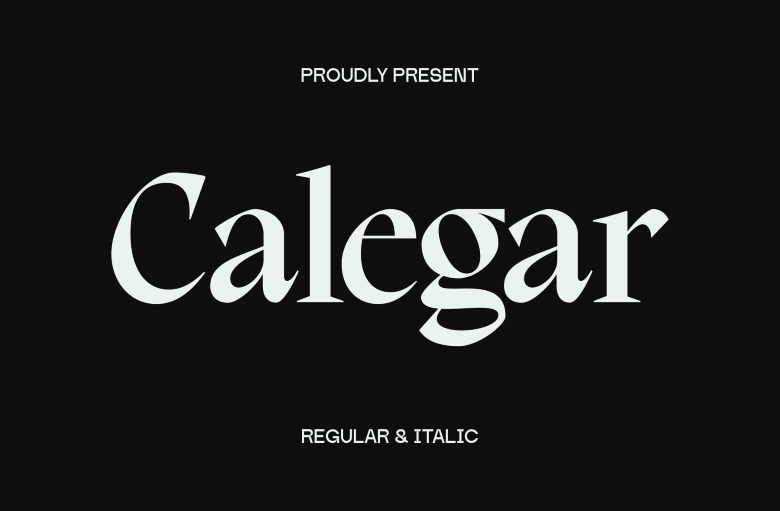
Calegar Font
Calegar is a western serif display typeface which reflects a perfect synergy of tradition and modernity. This works of font family has two orientations, the normal and the italic. Its simplistic look gives it a professional outlook and thus is suitable for use in corporate branding, brand identity projects and any other professional branding projects.
Calegar’s sharp serifs and perfect proportioned lettering must deliver the functionality of the typeface, which is ideal for both web and print.
Calegar Serif Font